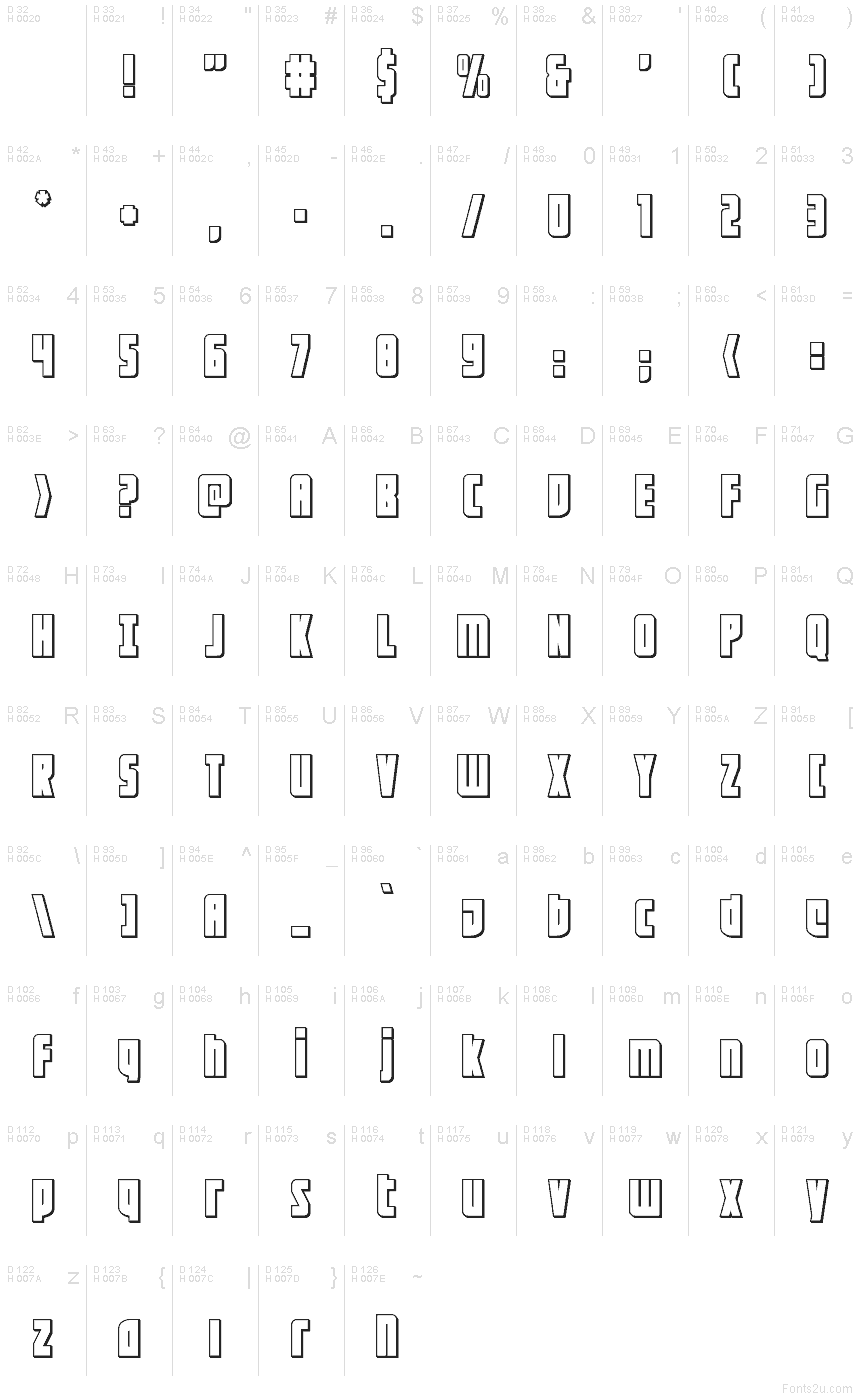
Impact Wrench 3D
Impact Wrench 3D font by Iconian Fonts is a display free font with a futuristic style and 3D appearance. The bold, condensed letters of the family develop thick outlines that accentuate the modern aesthetic inspired by geometric structure. Sturdy and industrial, this high-impact typeface communicates its presence clearly with unmistakable shapes.